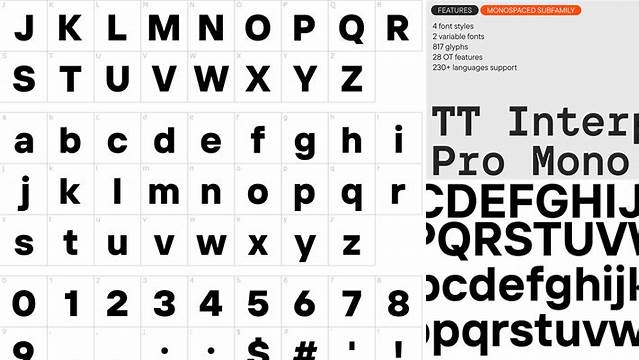
TT Interphases Extrabold is a fantastic font choice, and the ability to snag a free download is always a win! This article dives deep into everything you need to know about this powerful typeface. We'll explore its design, discuss how to download and install it, and brainstorm creative ways to use it in your projects. Get ready to elevate your design game, guys!
TT Interphases Extrabold Font: Unveiling the Design Aesthetic
TT Interphases Extrabold boasts a striking and modern design that commands attention. This font, a member of the larger TT Interphases family, immediately grabs the eye with its bold weight and clean lines. It's the kind of typeface that says, "Look at me!" in a sophisticated way. The designers at TypeType have clearly put a lot of thought into crafting a font that is both aesthetically pleasing and highly functional. Its extrabold weight makes it perfect for headlines, titles, and any design element where you want to make a strong visual statement. The characters are well-defined, ensuring readability even at larger sizes, and the overall design feels contemporary and versatile. It's not just a font; it's a statement. Considering the aesthetic, think about the balance of its design; the curves, the terminals, the weight distribution of the font, which makes it a great font for various design projects. When exploring the design aesthetic of TT Interphases Extrabold, it's crucial to consider its versatility. While its bold weight might seem limited to certain uses, the font's clean lines and modern feel actually allow it to adapt to a surprising range of projects. From website headers and posters to social media graphics and even logo designs, TT Interphases Extrabold can be a valuable asset in your design arsenal. Its design allows for excellent contrast and impact, making it ideal for grabbing attention in a crowded visual landscape. When you're choosing a font for a project, remember that the design's details are the key. The carefully crafted letterforms of TT Interphases Extrabold ensure it's not just about the boldness; it's about the quality of the design that supports the impact. So, when you decide to utilize the font, examine how the design works within your specific project. Will the design elements complement each other? Are you creating a project that needs to stand out and grab attention? With this in mind, TT Interphases Extrabold will surely meet your needs and elevate your designs.
The Anatomy of TT Interphases Extrabold Characters
Let's get down to the nitty-gritty. The character set of TT Interphases Extrabold is thoughtfully constructed. Each letter, number, and symbol is designed with a consistent weight and style, ensuring a harmonious look across the board. Pay close attention to the curves and terminals; they're smooth and flowing, which contributes to the font's overall readability. The spacing between characters is also carefully considered to avoid the font appearing cramped or loose. Type designers pay close attention to these details, because they know that every single element of the character is important to create a well-designed and functional typeface. Also, the font supports multiple languages. This is particularly valuable if you work on international projects, as it allows you to maintain consistency across different languages. The range of glyphs available is a crucial aspect of any font, and TT Interphases Extrabold has a really nice and extended character set. You will find all the standard characters, as well as many special characters, such as ligatures and stylistic alternatives. This level of detail ensures that you have all of the tools that you need to create impressive designs, no matter what your project is. The overall result is a font that is not only visually striking but also highly practical for everyday use. With its clean lines, consistent weight, and comprehensive character set, TT Interphases Extrabold is a great font choice for a variety of different applications.
Unleashing Creativity: Using TT Interphases Extrabold in Design Projects
Okay, now for the fun part: actually using TT Interphases Extrabold! This font is super versatile, but its extrabold weight makes it especially great for making a big statement. Think headlines, titles, and subheadings. It’s the perfect choice for projects where you want to immediately grab the reader's attention. For example, you could use it to create eye-catching posters, social media graphics, or website headers. Its bold and clean lines also make it ideal for logo design and branding materials. It can make your brand stand out with a unique and memorable look. You can also use it in a variety of other applications, from print to digital projects. Consider the atmosphere that you want to create and then use this font accordingly. When it comes to pairing TT Interphases Extrabold with other fonts, balance is key. It is a strong font, so it pairs well with more delicate or neutral fonts. You can combine it with a sans-serif font for a modern feel, or with a serif font for a more classic aesthetic. Try experimenting with different font combinations to find what works best for your project. The visual design helps create balance, so experiment with size, weight, and color to make sure your design looks polished and professional. It’s all about finding the right balance and creating a cohesive design that reflects your vision.
Practical Applications: Where to Use TT Interphases Extrabold
Let's get specific. Where can you actually use TT Interphases Extrabold? Well, the possibilities are quite extensive. Use it to create amazing website headers. Its bold weight makes your website's headline pop, grabbing the attention of your visitors immediately. You can also use it for posters and flyers. It’s perfect for creating compelling marketing materials. Consider using it in social media graphics. It can help you make your social media posts more engaging and shareable. Think about using it for branding and logo design, to create a strong brand identity. You can create eye-catching titles and headings in documents. Whether you're writing a report, a presentation, or a blog post, TT Interphases Extrabold will make your titles really stand out. When you use this font, consider the design's context, from the website, to the packaging design, or the brand identity. The font's versatility allows you to use it in a wide range of contexts. You can adapt it to your design needs and use it to create visually stunning work. If you're looking for a font that is versatile, bold, and easy to read, then TT Interphases Extrabold might be the perfect choice for you. So, the possibilities are endless! Get creative, guys.
Pairing TT Interphases Extrabold: Font Combinations and Harmony
Where to Find Inspiration for Using TT Interphases Extrabold
Looking for inspiration? Here's where to find it for TT Interphases Extrabold: Start by exploring design websites and blogs. These websites will help you discover new designs. Browse Behance and Dribbble. They are the best places to find great designs using the font. Look at design projects that use similar fonts. You can also explore the TypeType website. They often provide examples of how to use their fonts. Research other successful brands that have used the font. You can find inspiration for creating unique designs. Always look at design examples that feature the font. Take your time and study them to learn how to apply the font to various projects. Always consider the different design styles. Choose a style that matches your brand personality. Experiment with combining the font with other design elements. You can create a design that’s both functional and visually appealing. If you are looking for design ideas, then the web is the best place for it. So, the opportunities are endless, and your designs can be great!